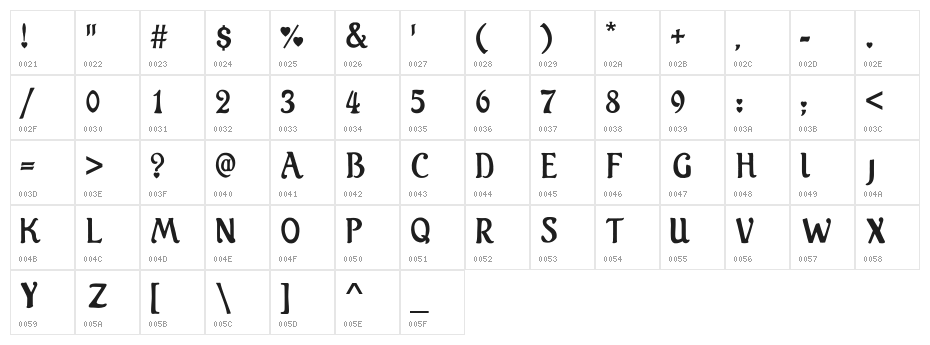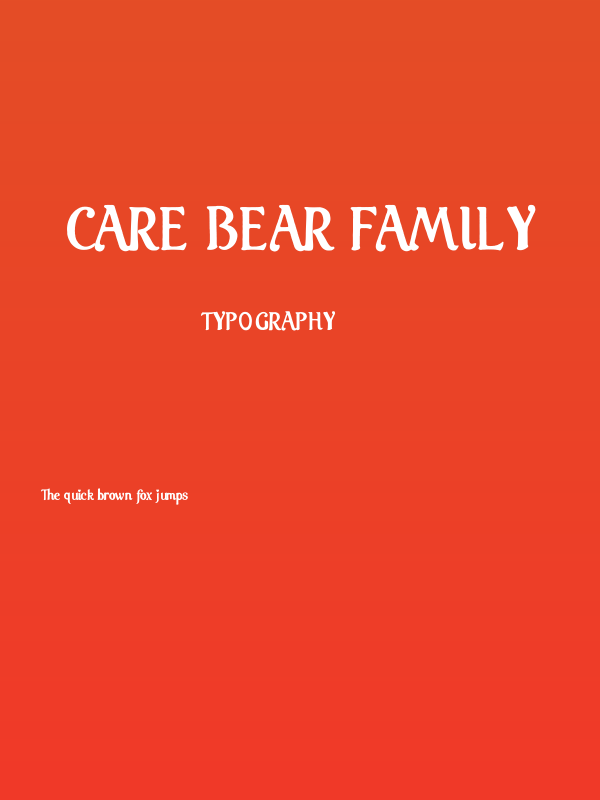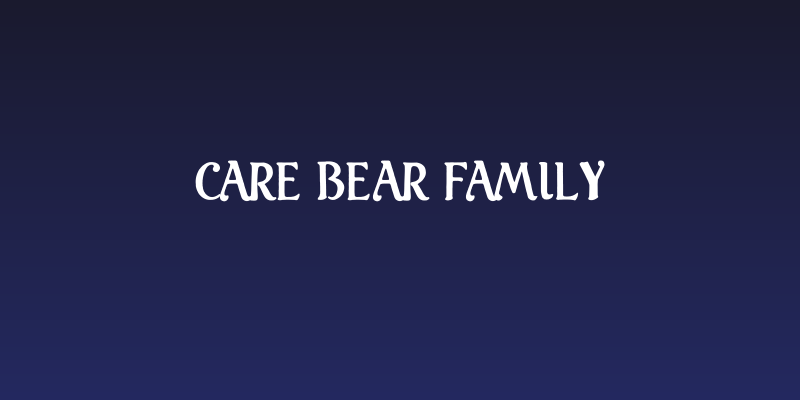
Care Bear Family Font
Care Bear Family Description
This font features a playful and whimsical style, characterized by its bold and rounded letterforms. The uppercase letters have a slightly uneven baseline, adding to the casual and friendly appearance. The lowercase letters maintain a consistent height, with some characters like 'g' and 'j' having distinctive loops. The numerals are bold and easy to read, matching the overall style of the alphabet. Special characters are creatively designed, with some incorporating heart shapes, enhancing the font's charm. This font is ideal for projects that require a fun and approachable aesthetic.
| Proposed Projects | Ideal for children's books, greeting cards, playful branding, and any design needing a friendly touch. |